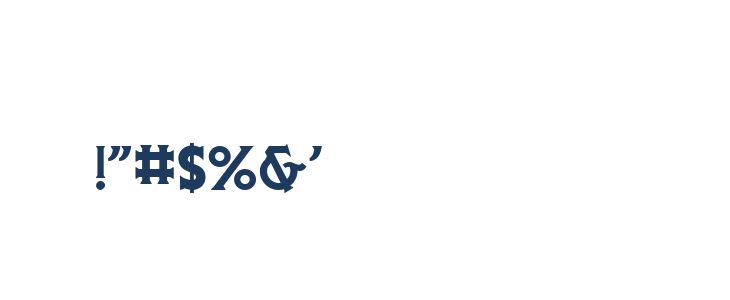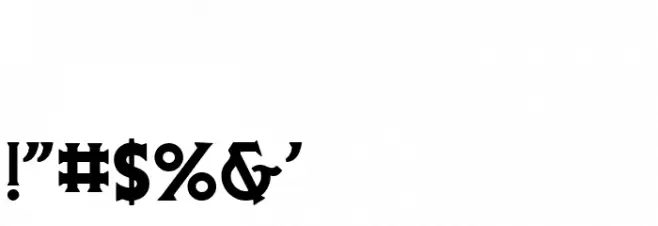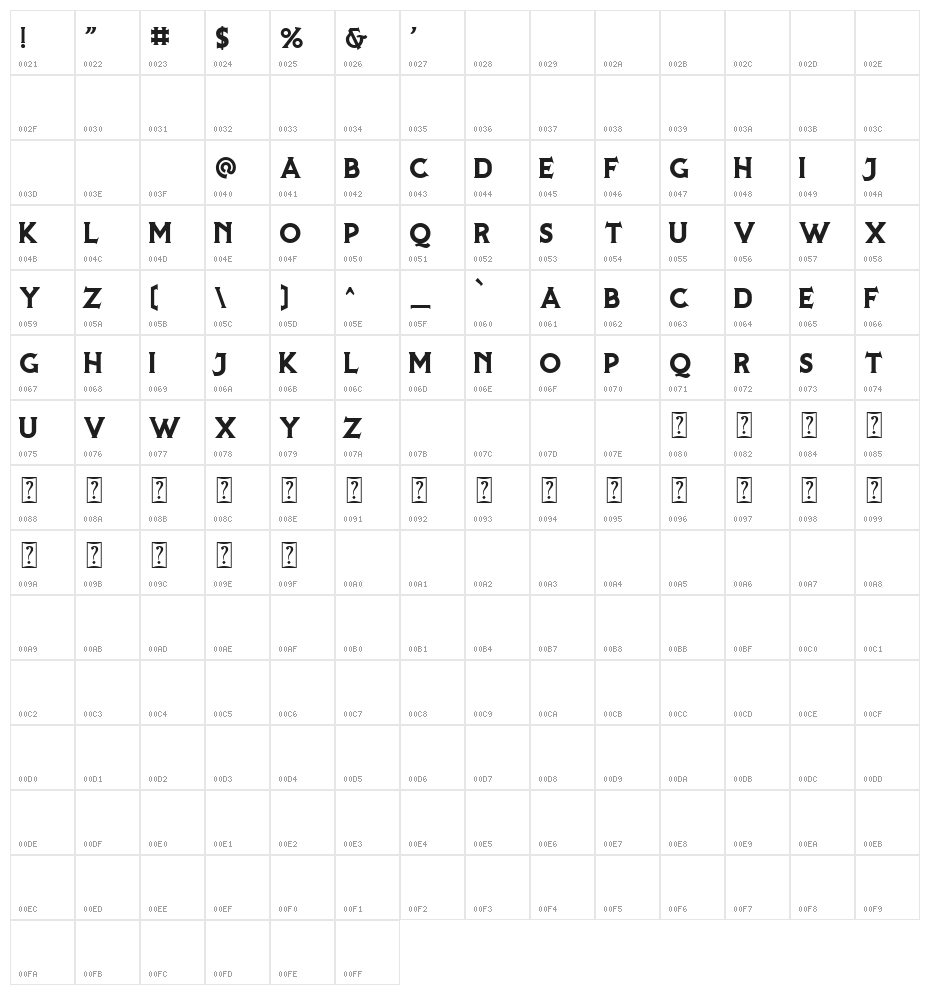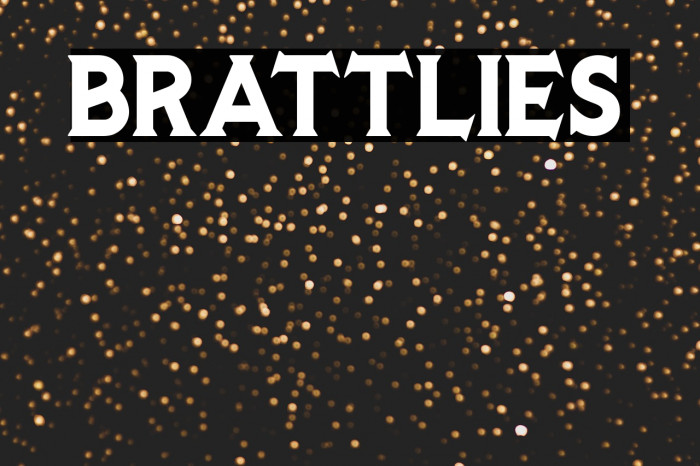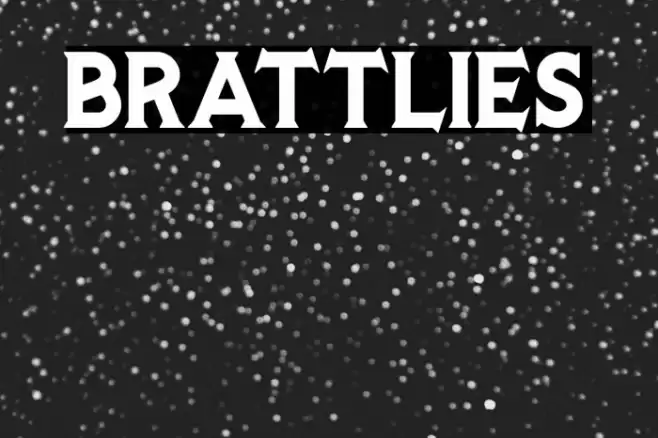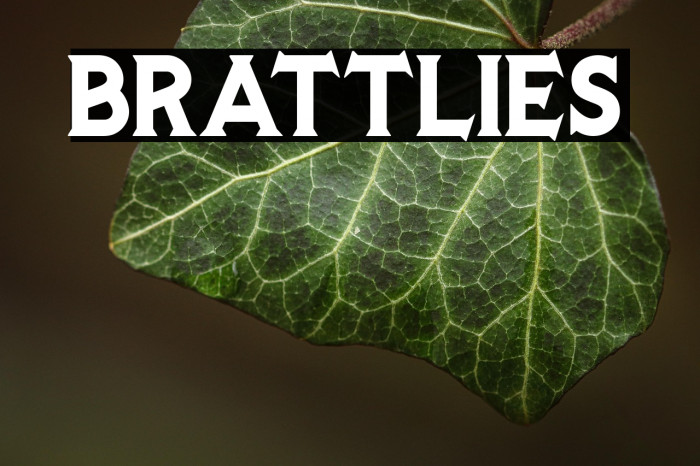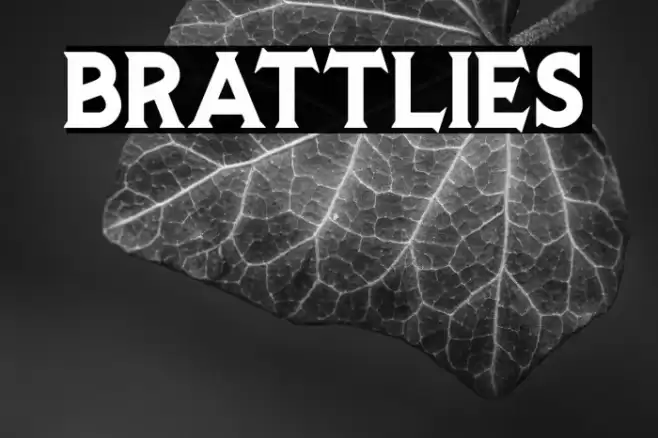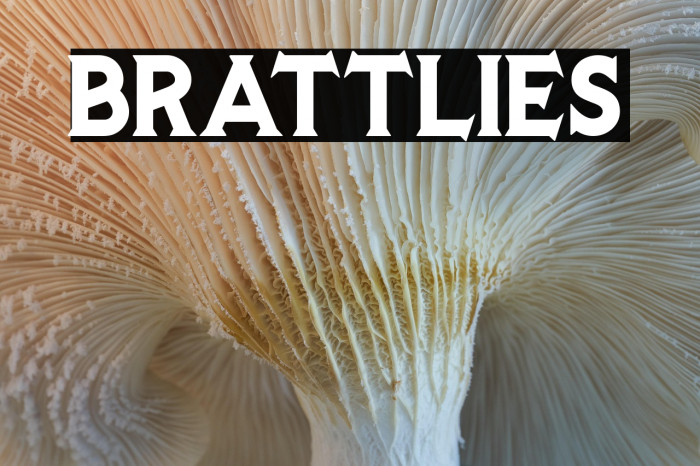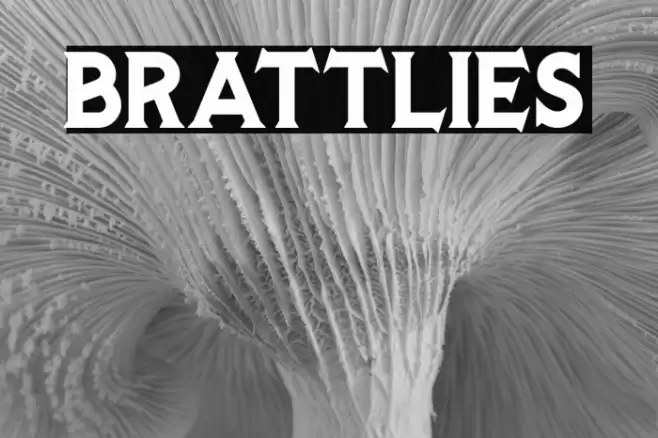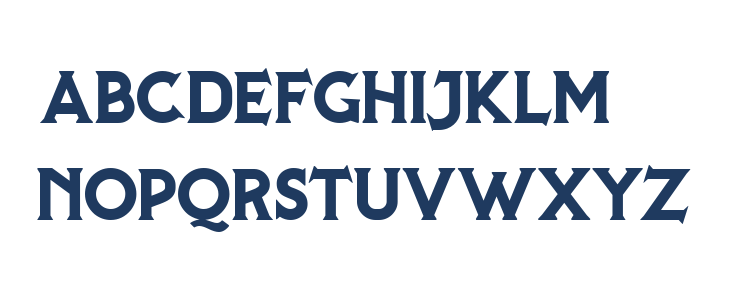
BRATTLIES Font
BRATTLIES Description
This font features a bold and striking design with sharp, angular serifs that give it a distinctive and aggressive appearance. The uppercase letters are particularly prominent, with a strong presence that commands attention. The lowercase letters maintain the same boldness, ensuring consistency across the typeface. The numbers and special characters are designed to match the overall aesthetic, making them suitable for a variety of uses. The font's unique style makes it ideal for projects that require a bold statement, such as branding or headlines.
| Proposed Projects | Ideal for branding, headlines, posters, and any project needing a bold statement. |